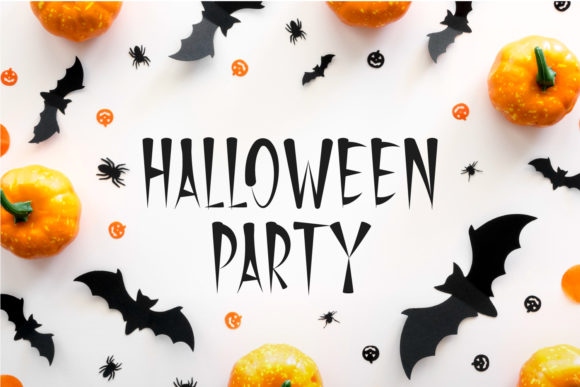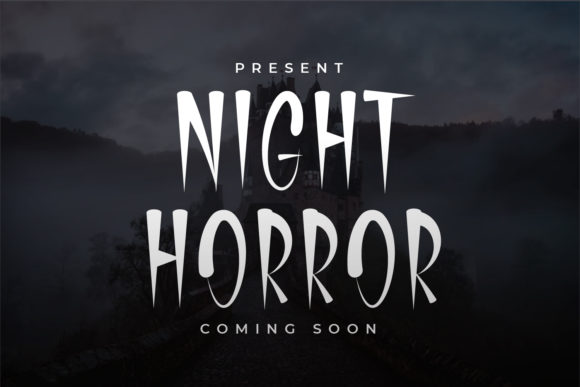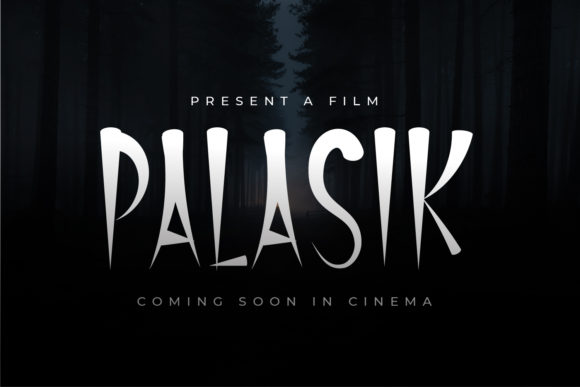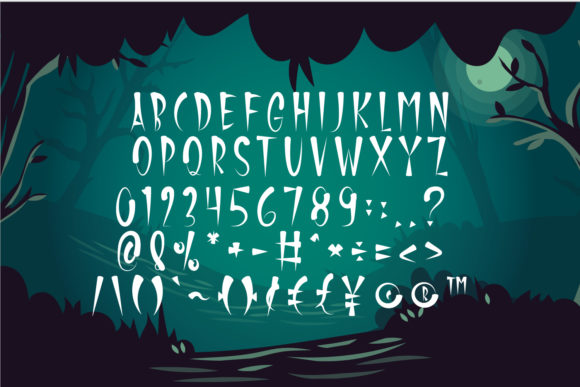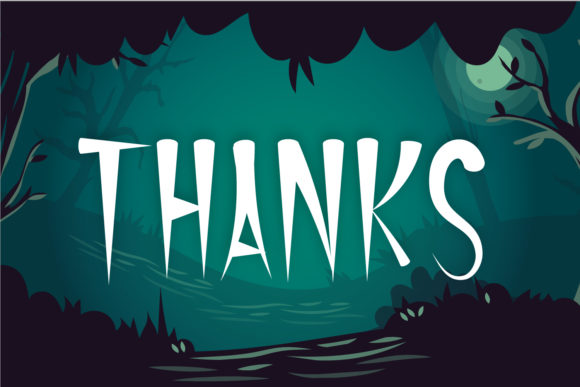
Unleash the Fear with Dark Night Font: The Ultimate Horror Display Font
Are you a designer or a crafter looking for a font that can evoke the eerie and spine-tingling atmosphere of a horror movie or a Halloween theme? Look no further than the Dark Night Font. This horror display font is specifically designed to send chills down the spine, making it perfect for movies, horror posters, and Halloween-themed designs.
The Perfect Font for Horror Enthusiasts
Dark Night Font is a carefully crafted font that is sure to leave a lasting impression on your audience. Its unique and creepy design makes it an ideal choice for designers and crafters who want to create a sense of fear and unease in their work. Whether you’re designing a horror movie poster, a Halloween invitation, or a spooky-themed craft project, Dark Night Font is the perfect choice.
One of the best things about Dark Night Font is its versatility. It can be used in a variety of contexts, from busy backgrounds to standalone headlines. Its bold and eye-catching design ensures that it will always stand out, making it perfect for designers and crafters who want to create a lasting impression.
Key Features of Dark Night Font
• Horror-themed design: Dark Night Font is specifically designed to evoke the eerie and spine-tingling atmosphere of a horror movie or a Halloween theme.
• Perfect for movies and posters: Its bold and eye-catching design makes it perfect for horror movie posters, Halloween invitations, and other spooky-themed designs.
• Suitable for Halloween themes: Dark Night Font is a great choice for designers and crafters who want to create spooky-themed designs for Halloween.
• Versatile: It can be used in a variety of contexts, from busy backgrounds to standalone headlines.
Tips for Using Dark Night Font
• Use it sparingly: Dark Night Font is a bold and eye-catching font, so use it sparingly to avoid overwhelming your design.
• Pair it with other fonts: Pair Dark Night Font with other fonts to create a unique and interesting design.
• Experiment with colors: Experiment with different colors to find the one that works best with Dark Night Font.
Dark Night Font is a horror display font that is perfect for designers and crafters who want to create spooky-themed designs. Its unique and creepy design makes it an ideal choice for horror movie posters, Halloween invitations, and other spooky-themed designs. With its versatility and bold design, Dark Night Font is sure to leave a lasting impression on your audience.